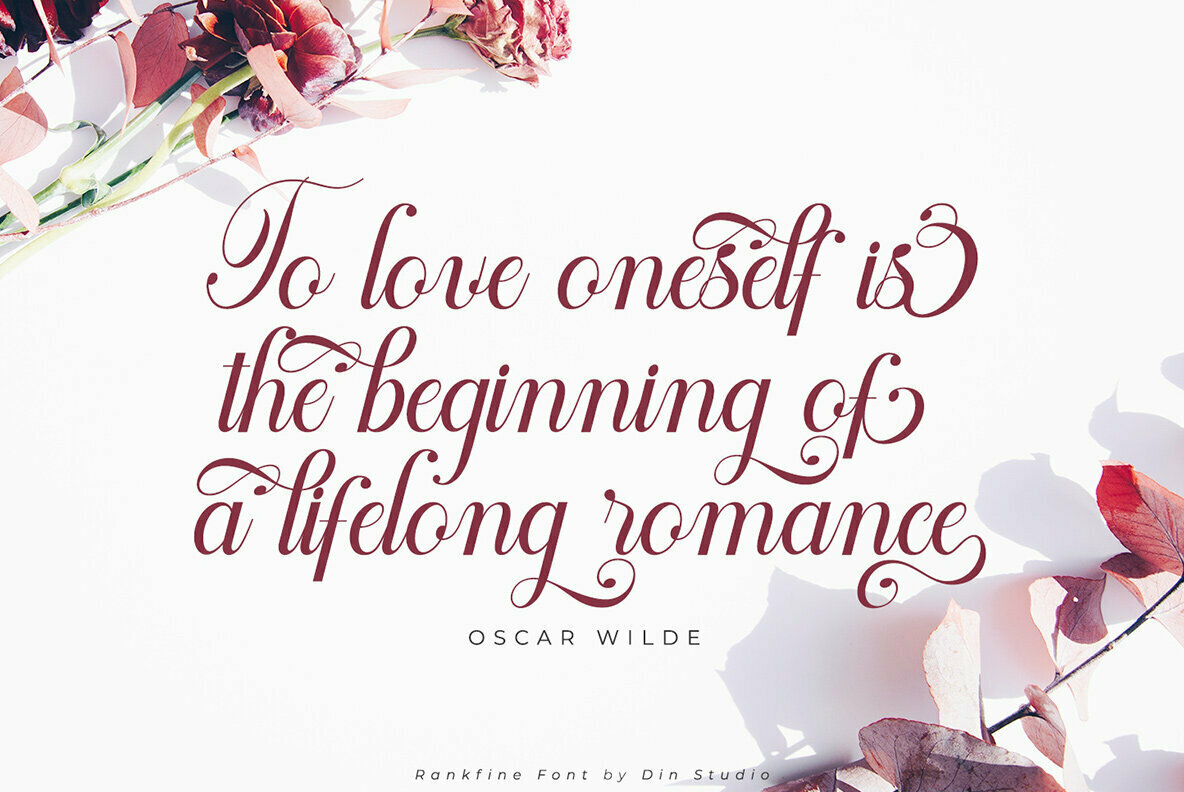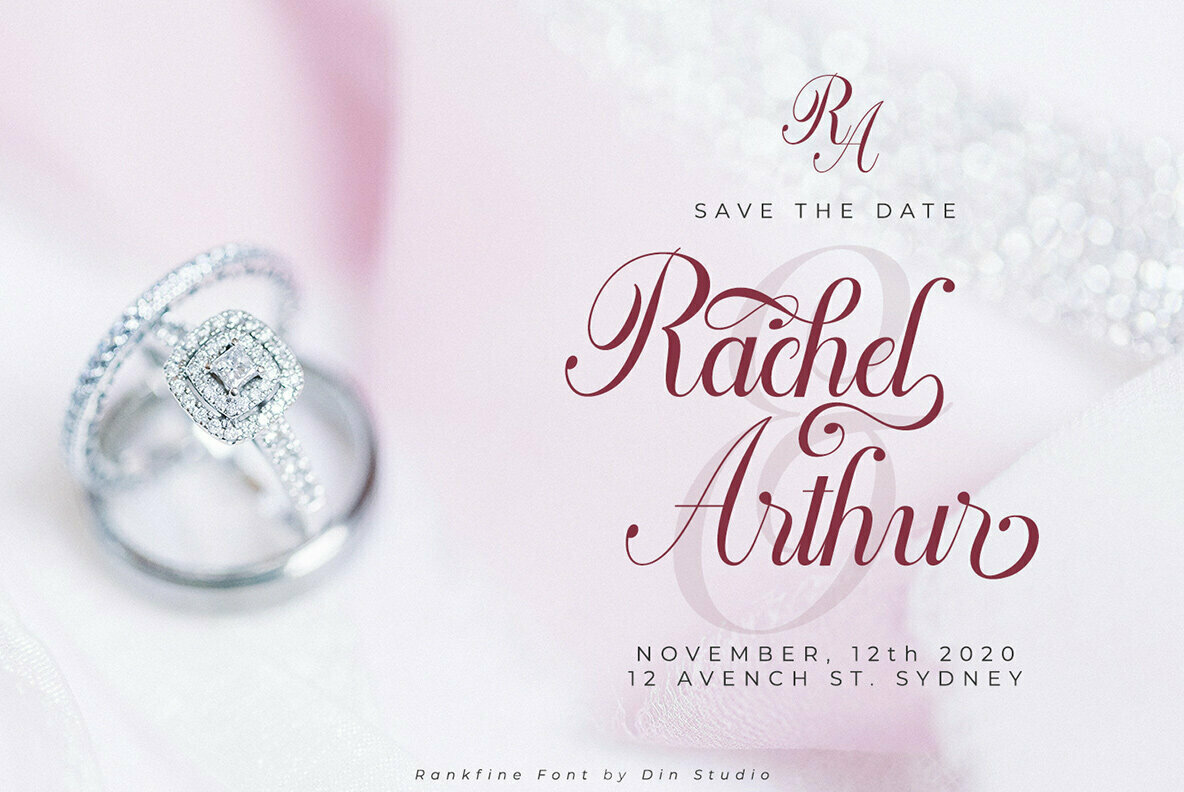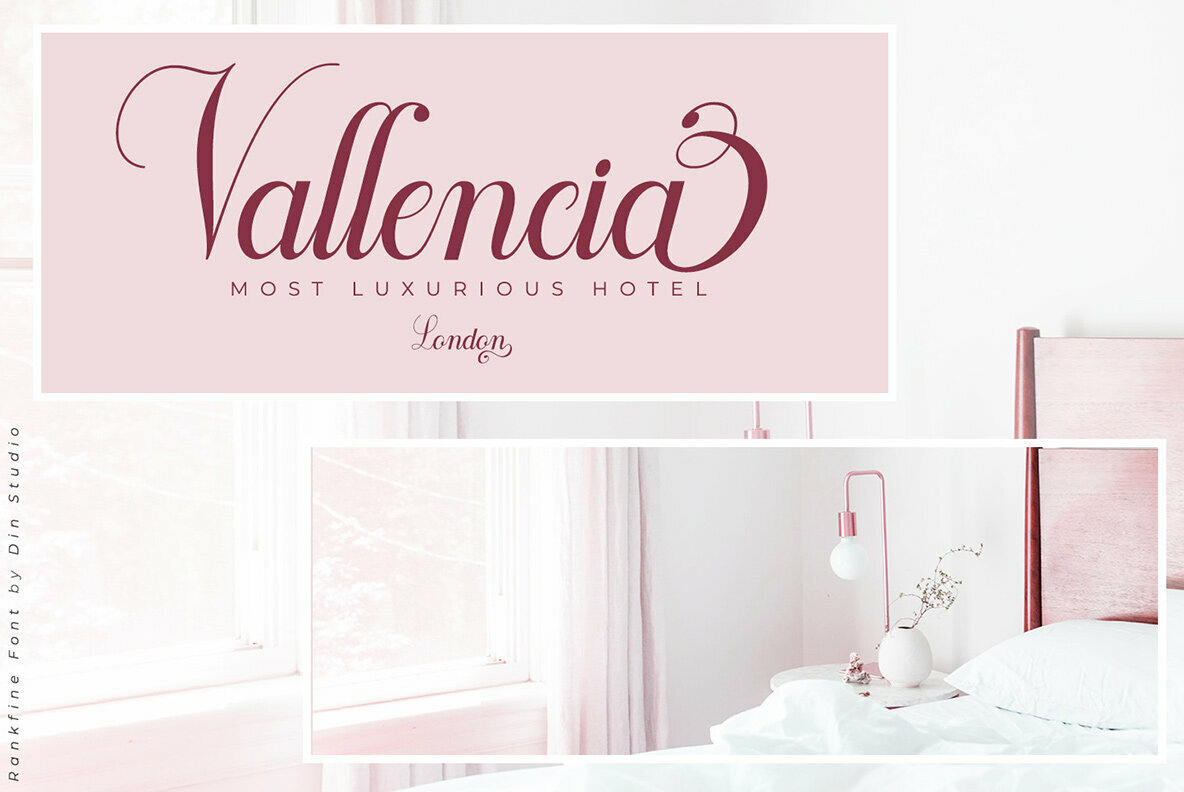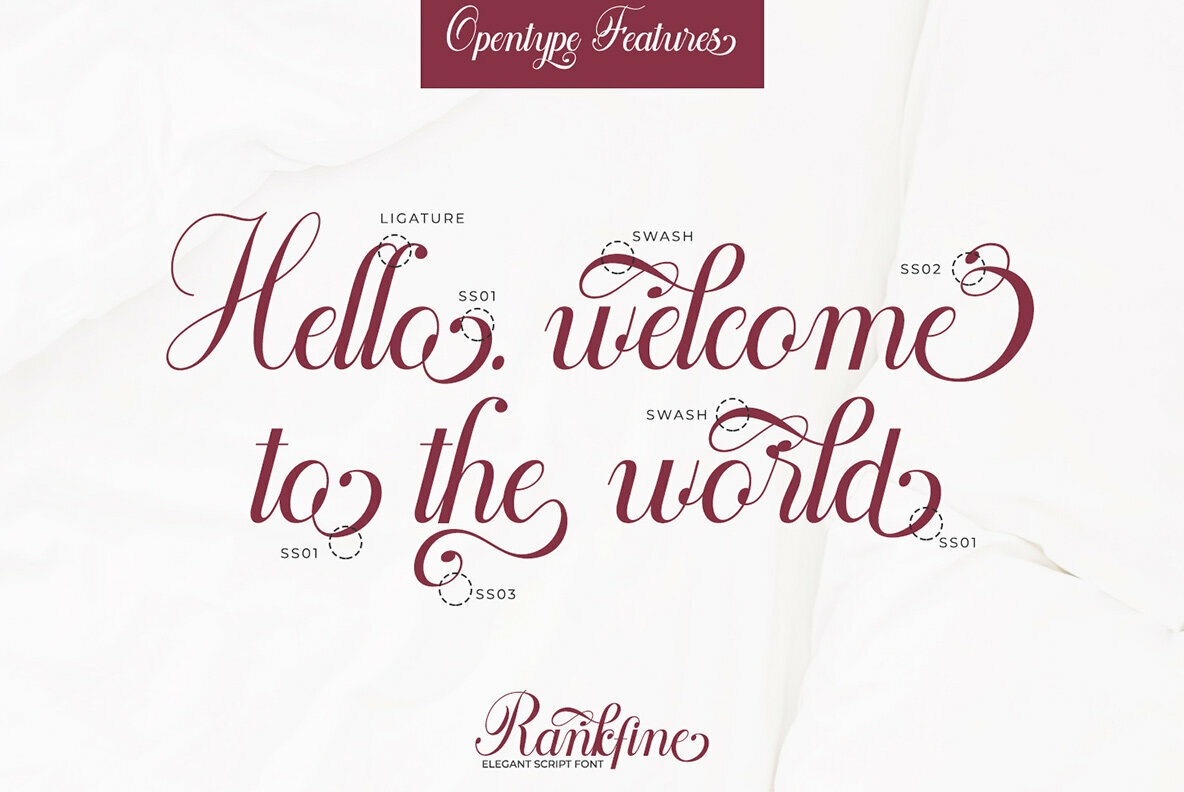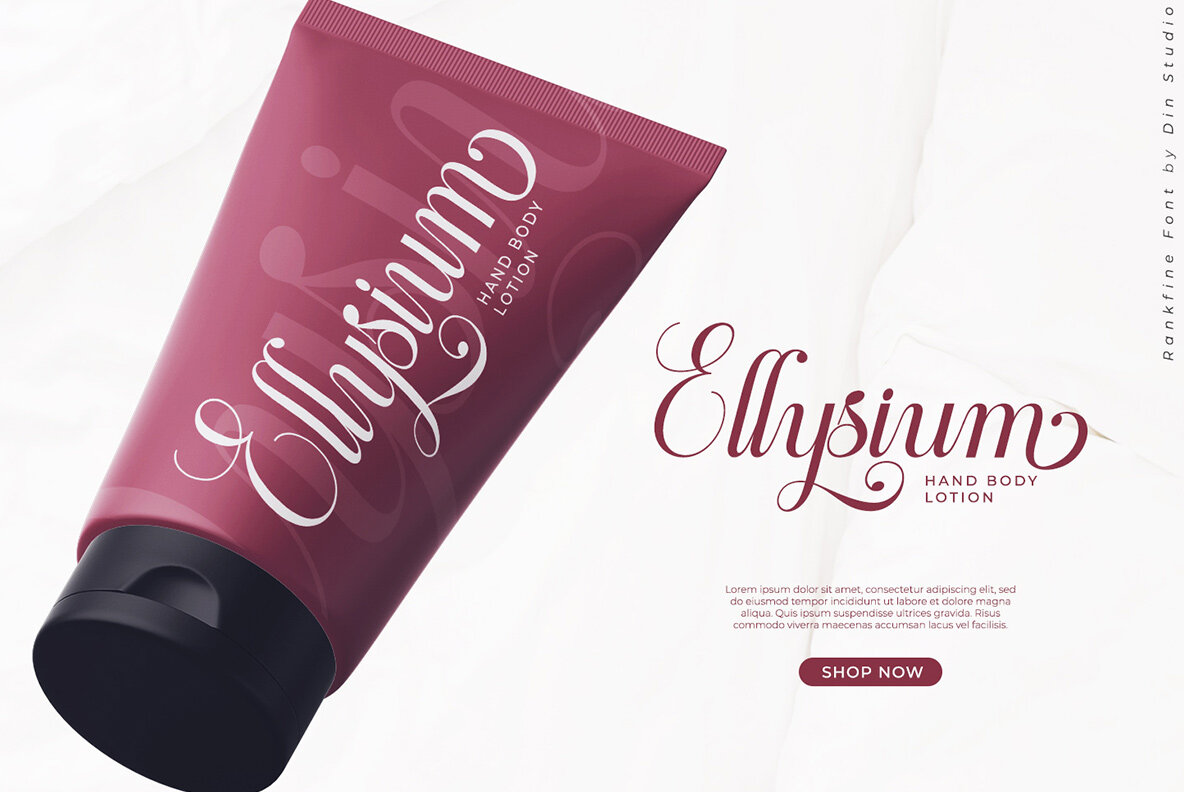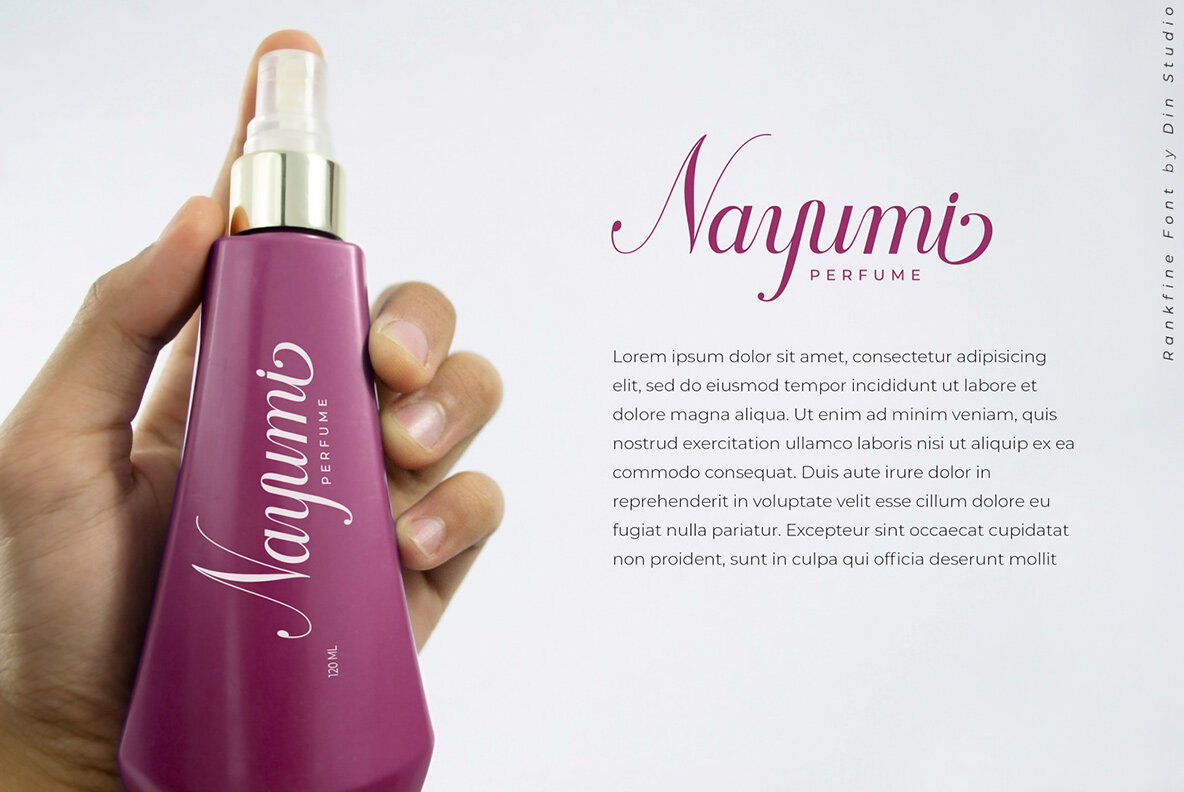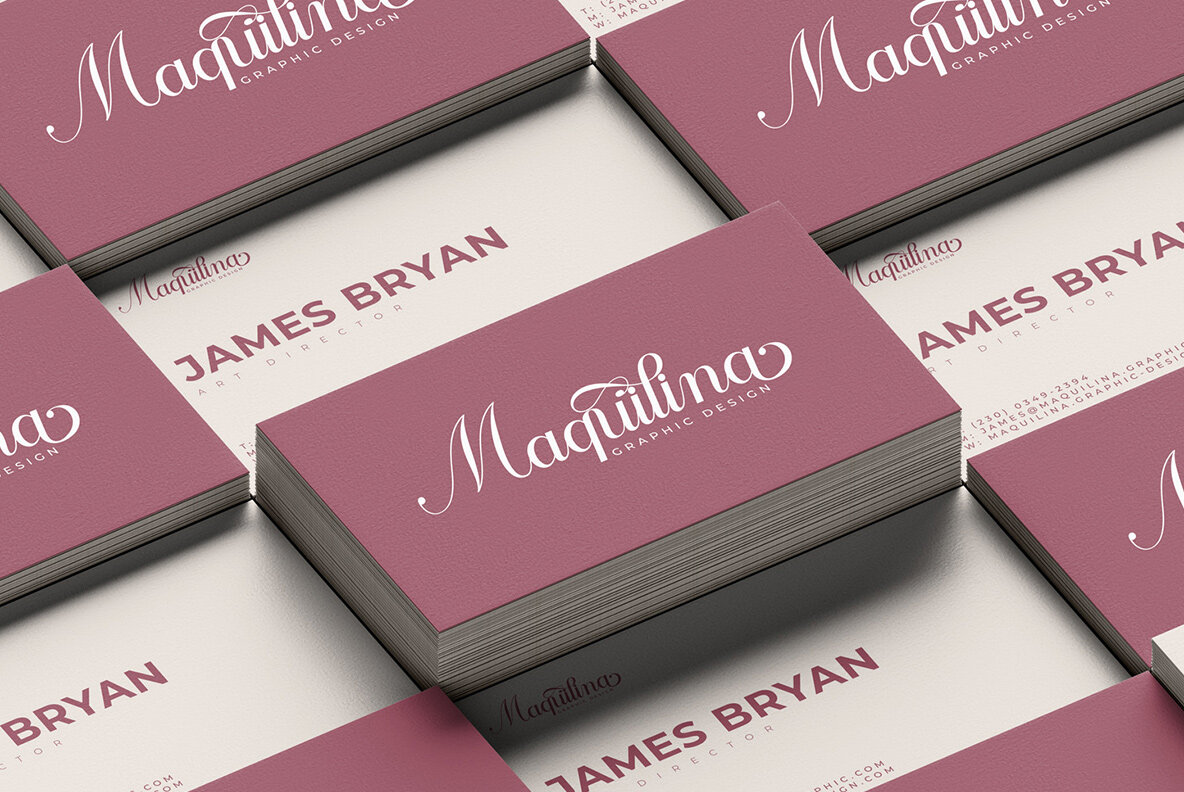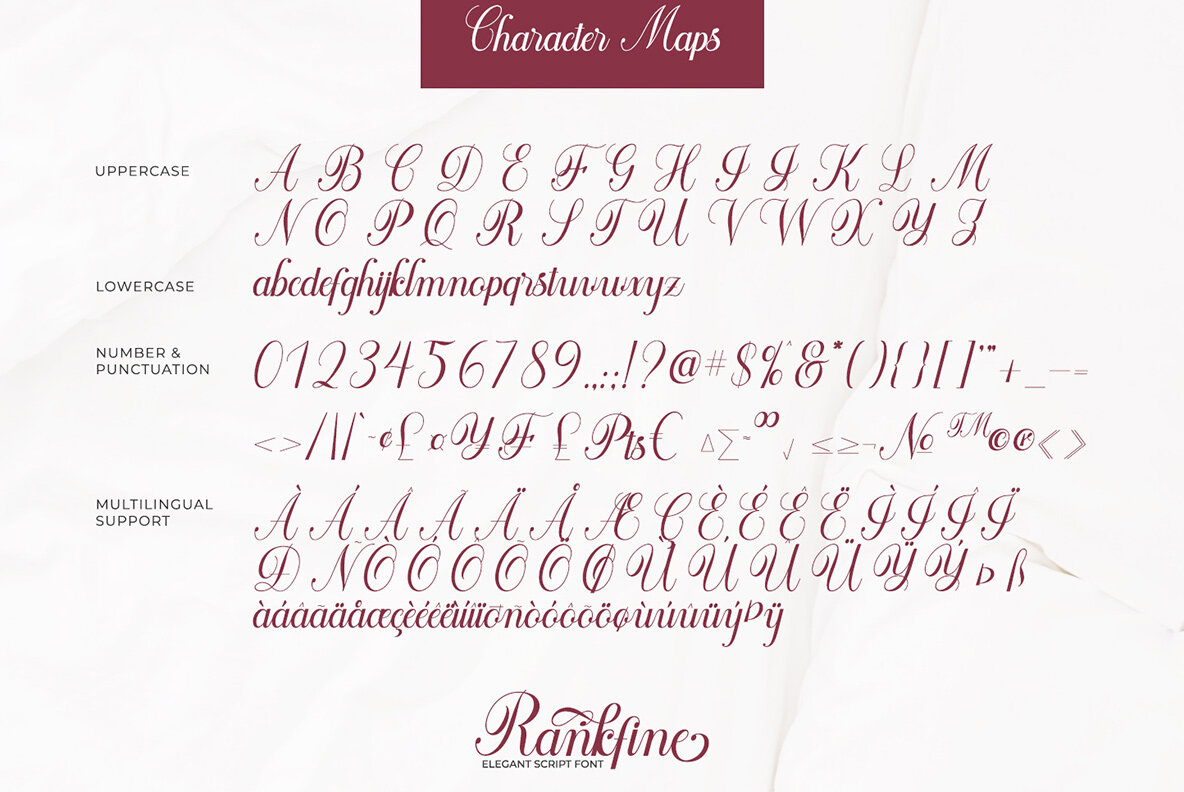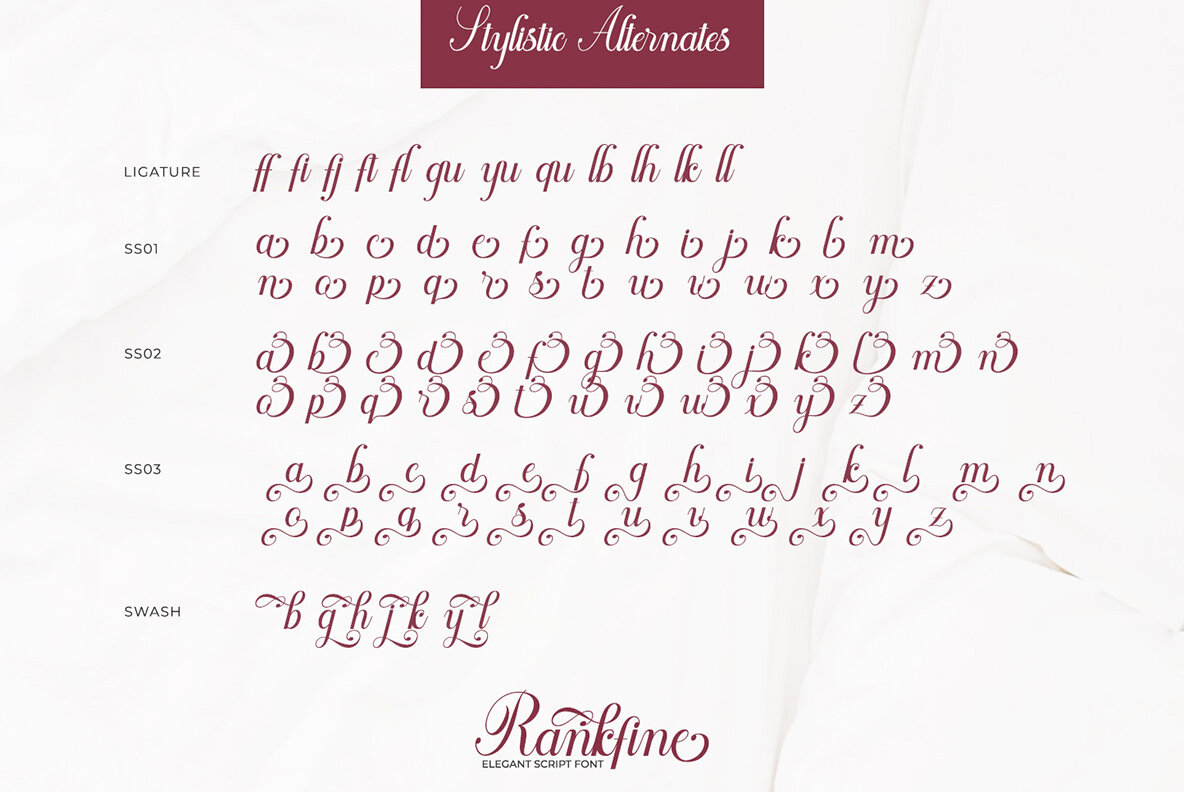
Rankfine Font
Rankfine
Rankfine exudes the grace of calligraphy with a naturally handwritten aesthetic, presenting a modern and striking typeface for designers. Its versatility shines in professional branding projects, making it particularly suitable for logos, wedding invitations, and quotes.Rankfine: Elegant Calligraphy With Handwritten Style